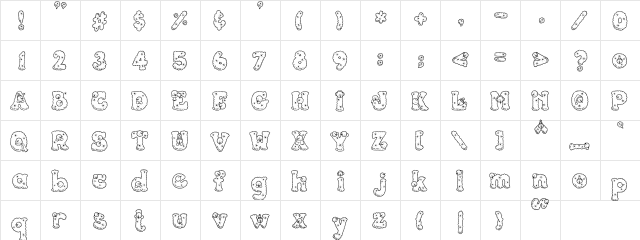
PC Snowballs Regular
Design Context for PC Snowballs Typeface
PC Snowballs is a composed and adaptable typeface that performs quietly and consistently across a wide range of design contexts.